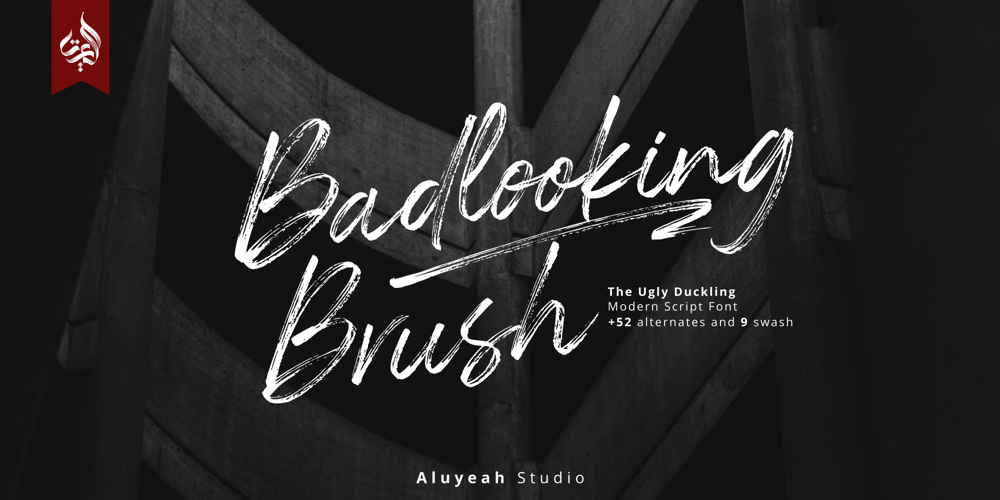
Al Badlooking Brush Font Family was designed by Linggar Sundoro and published by Aluyeah Studio. Al Badlooking Brush contains 1 styles and family package options. Badlooking Brush, the ugly duckling modern script font. Coming with 52 alternates, 9 stunning swash and super easy to use alternates. Very suitable for magazine, headline, website, ads, product package and all type of design project you have. Features:OpenType supportMultilingual support (15 languages)PUA EncodedSuper Easy to Use alternates – It’s OpenType support but you can easily call alternates character using special combination like A.2 R.2 a.2 h.2 etc so you don’t need a special software. To get results like the preview just type Badloo.2king B.2ru.2sh